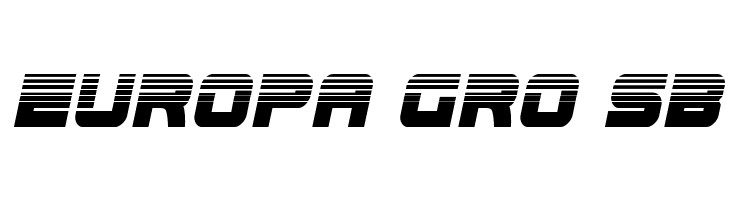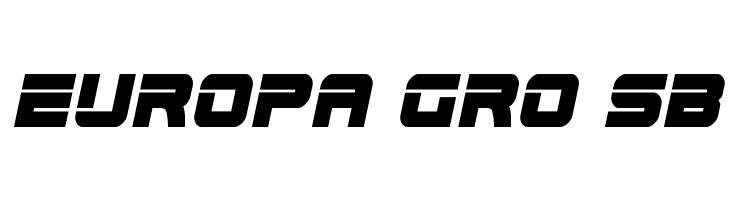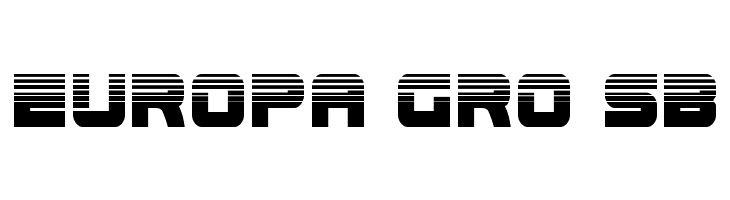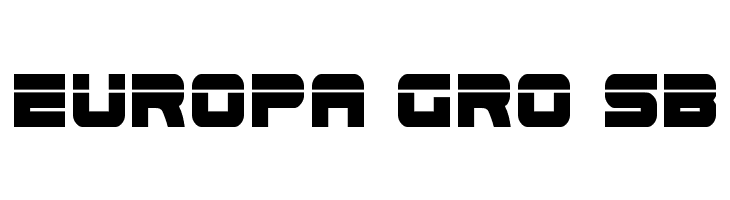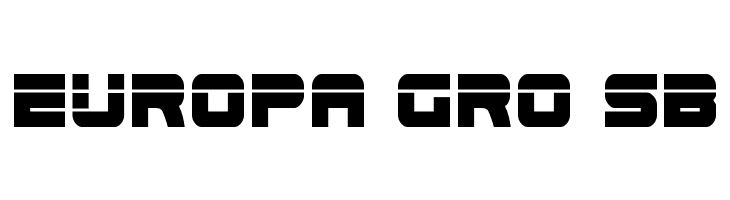
A bold, futuristic font with geometric, angular characters and high contrast.
A bold, expanded, and italic font with a futuristic and dynamic style.
A bold, expanded, and italicized font with a futuristic and sporty style.
A bold, futuristic font with a distinctive striped pattern and geometric shapes.
A bold, italicized font with a racing-inspired, striped gradient design.
A bold, futuristic font with a halftone effect, ideal for dynamic designs.
A bold, italicized font with a futuristic halftone effect and geometric shapes.
A bold, futuristic font with geometric shapes and a modern, tech-inspired style.
A bold, geometric font with a futuristic and digital aesthetic.